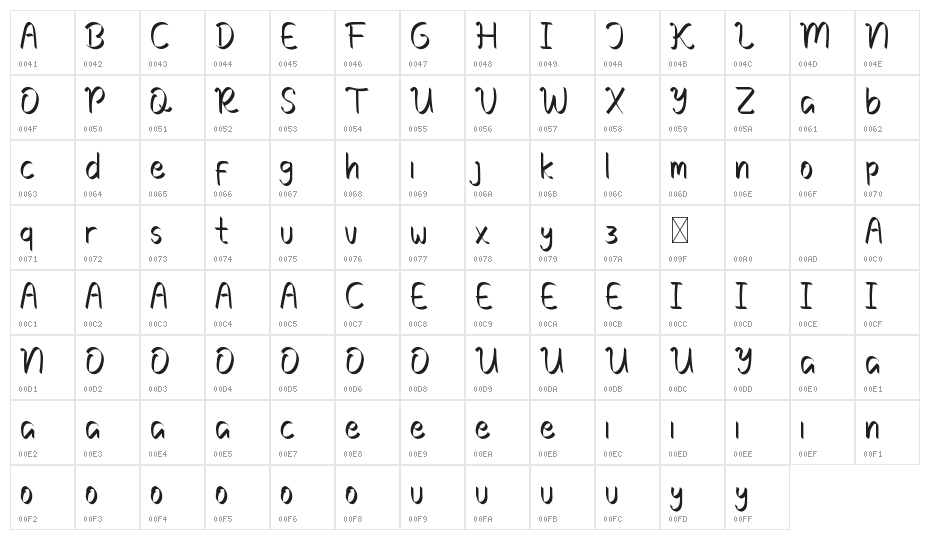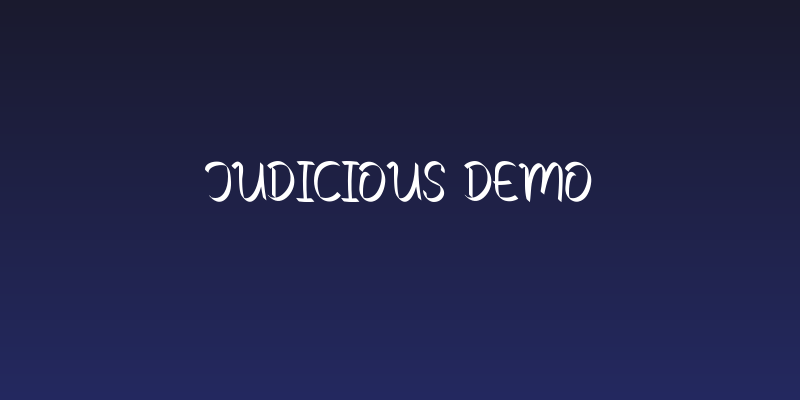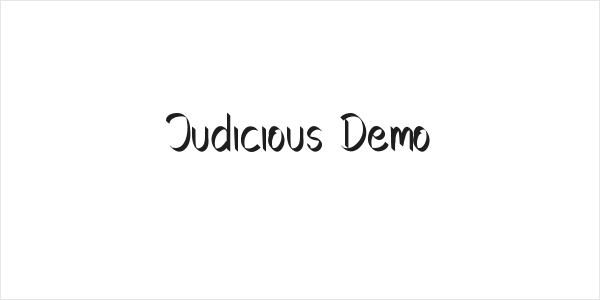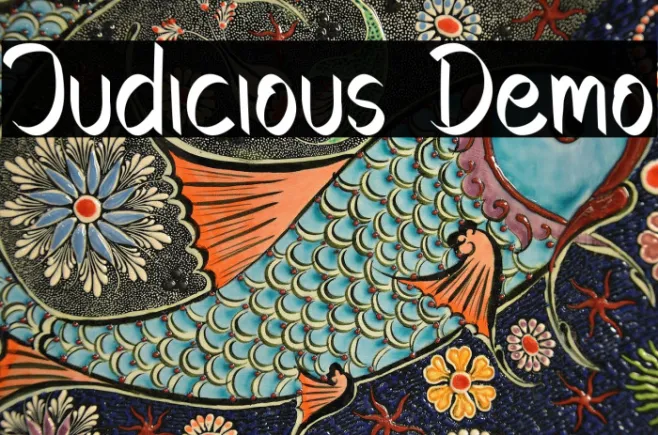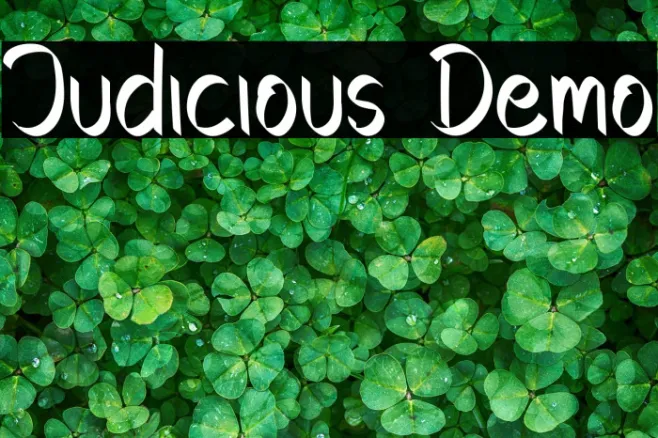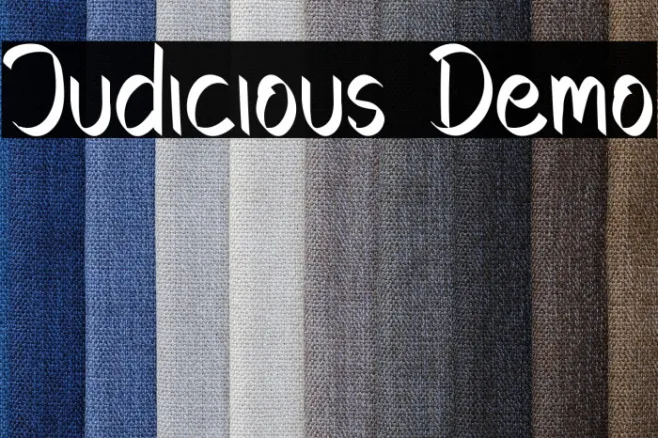
Judicious Demo Font
Judicious Demo Description
This font features a playful and dynamic style with a handwritten appearance. The letters have a fluid, brush-like quality, giving them a sense of movement and energy. The strokes are bold and slightly irregular, adding to the casual and informal feel. The uppercase and lowercase letters maintain a consistent style, with rounded edges and varying stroke widths that create a lively texture. The font is versatile, suitable for projects that require a personal touch or a creative flair. It is ideal for use in designs that aim to convey a sense of fun and spontaneity.
| Proposed Projects | Greeting cards, invitations, posters, and branding materials. |